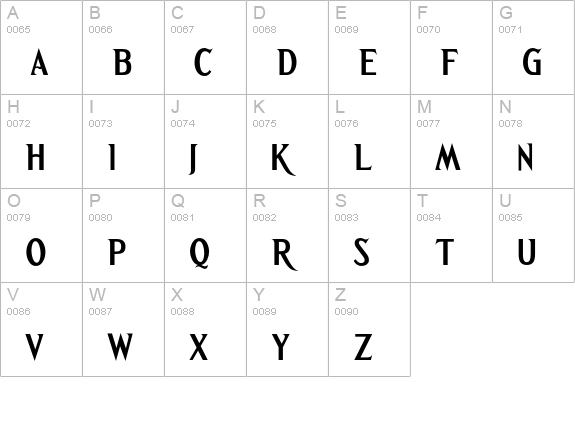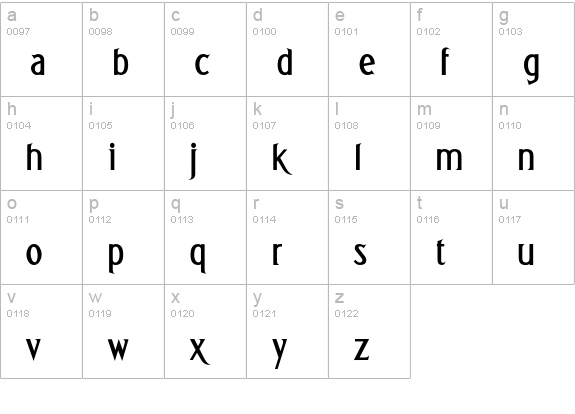
Greetings Bold Font Details
Greetings Bold is a strong, high-contrast variant in the Greetings typeface family \xE2\x80\x94 well suited to headlines, attention-grabbing titles, and strong calls-to-action.
Introducing Greetings Bold, a striking and expressive font that exudes confidence and style. This bold typeface is perfect for making a statement with your designs, whether it be for headlines, logos, or any creative project that calls for a touch of boldness. With its strong and commanding presence, Greetings Bold captures attention and ensures that your message stands out from the crowd. Its clean lines and distinct letterforms add a touch of sophistication, making it a versatile choice for both professional and personal projects. What sets Greetings Bold apart is not only its aesthetic appeal but also its accessibility. This font is freely available to download at FontsMarket.com, providing designers and enthusiasts with the opportunity to enhance their creations without breaking the bank. With just a few clicks, you can add this dynamic font to your collection and start incorporating its bold personality into your designs. Whether you're designing a poster, creating a website, or crafting an eye-catching social media post, Greetings Bold will help you make an impact. Its versatility allows it to adapt to various design styles and contexts, making it a go-to choice for designers seeking a font that can handle any creative challenge. So why wait? Download Greetings Bold today from FontsMarket.com and unleash its bold and captivating presence in your next project. Let this font be the bold statement you need to leave a lasting impression on your audience.